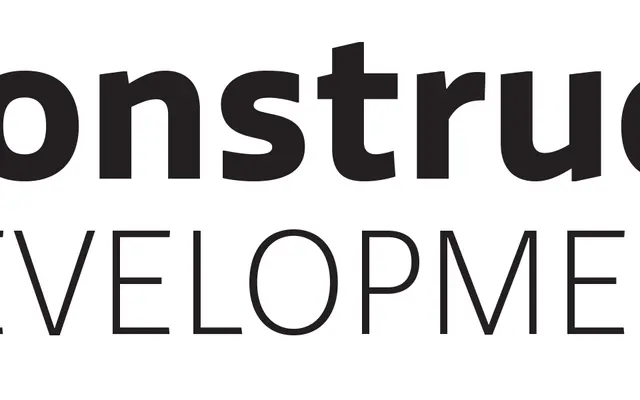
A six-weight humanist sans with matching italics, balancing calligraphic warmth with geometric construction for print and screen use.
Twelve styles across six weights from Thin to Heavy, each with a matching italic. The design draws on both written and constructed letterform traditions, giving it a degree of warmth without sacrificing clarity. Available through Adobe Fonts as well as direct purchase, it is positioned as an all-purpose workhorse for editorial and UI applications.
Described as a balance of written and constructed forms, suggesting humanist origins with geometric influences typical of contemporary humanist sans-serifs.